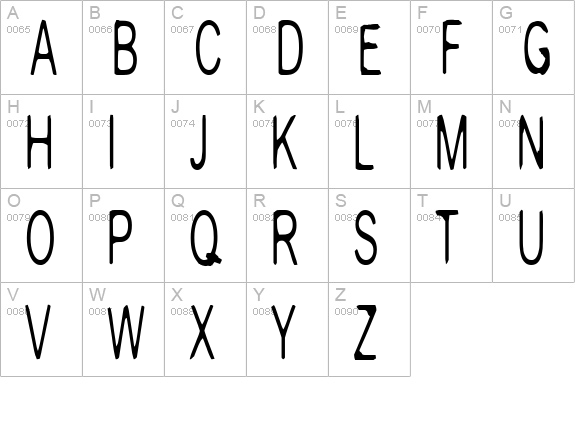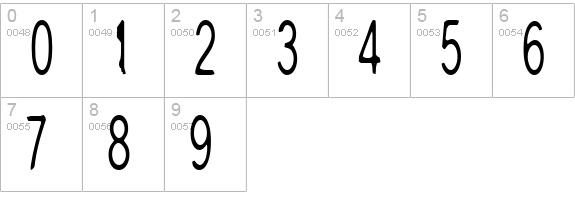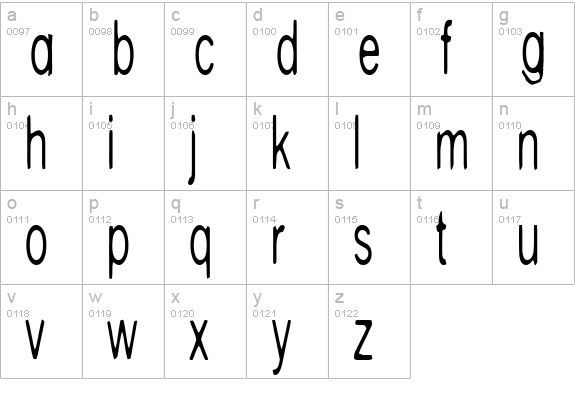
Introducing Pale Ale Purveyor, a captivating font that effortlessly captures the essence of modern craftsmanship. With its bold and refined letterforms, this font exudes a sense of sophistication and creativity, making it the perfect choice for any project seeking a touch of elegance. Pale Ale Purveyor boasts a unique blend of classic and contemporary design elements, resulting in a versatile typeface that can effortlessly adapt to various creative endeavors. Whether used for branding, packaging, editorial design, or signage, this font adds a distinctive flair that is sure to captivate any audience. What makes Pale Ale Purveyor even more enticing is that it is freely available to download at FontsMarket.com. Yes, you read that right – this exceptional font can be yours without any cost. With just a few clicks, you can enhance your design projects with the timeless charm and high-quality craftsmanship that Pale Ale Purveyor offers. Designed with meticulous attention to detail, Pale Ale Purveyor ensures legibility and readability at any size. Its clean lines and balanced proportions guarantee seamless integration into any design composition, while its wide range of characters and glyphs provide endless possibilities for creative expression. Whether you're a seasoned designer or just starting your creative journey, Pale Ale Purveyor is the perfect companion to elevate your work. Its versatility, elegance, and availability as a free download make it an invaluable addition to any designer's toolkit. So don't wait any longer – head over to FontsMarket.com and download Pale Ale Purveyor today. Discover the freedom to create stunning designs that leave a lasting impression. Embrace the artistry of Pale Ale Purveyor and embark on a journey of limitless creative possibilities.